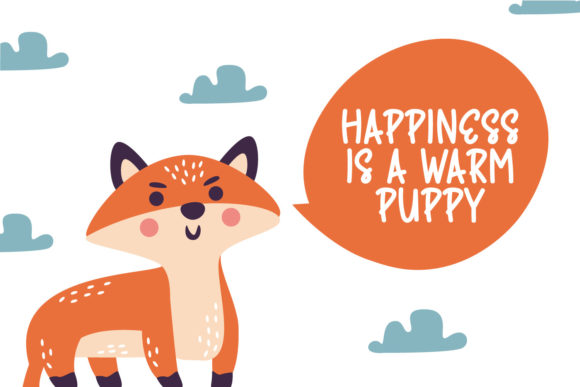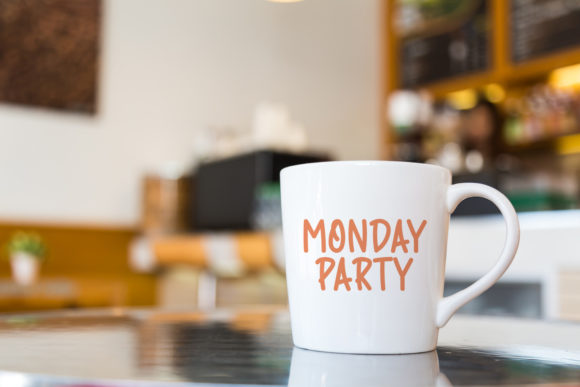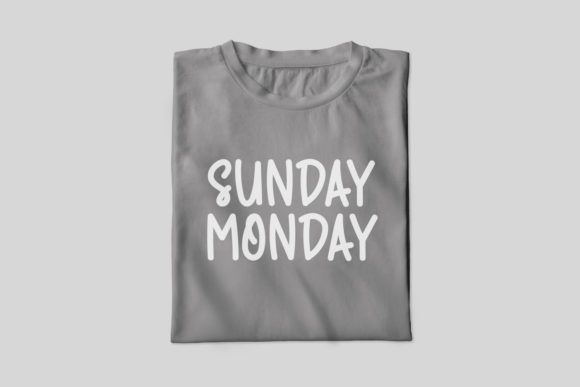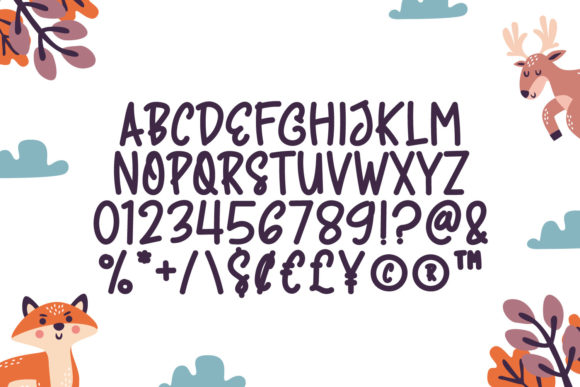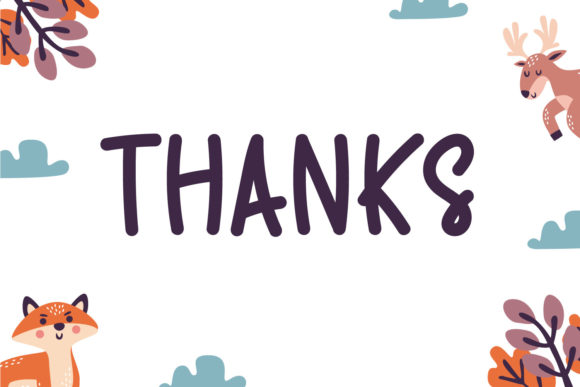
Introducing Comic Animal Font: The Ultimate Display Font for Your Creative Projects
Are you tired of using the same old fonts for your designs? Look no further! Comic Animal Font is here to revolutionize your creative projects with its cute, simple, and trendy display font. This versatile font is suitable for a wide variety of designs, making it the perfect addition to your font library.
What Makes Comic Animal Font So Special?
Comic Animal Font is a unique and charming display font that can add a touch of personality to any design. Its simplicity and cuteness make it perfect for designs that require a playful and fun approach. The font’s trendy style ensures that your designs will look modern and fresh, grabbing the attention of your audience.
Why Choose Comic Animal Font?
- Versatility: Comic Animal Font is suitable for a wide range of designs, from posters and flyers to social media graphics and branding materials.
- Ease of Use: The font is simple to use and can be easily integrated into your design projects.
- Cute and Playful: The font’s cute and playful style adds a touch of personality to your designs, making them more engaging and memorable.
- Trendy: The font’s trendy style ensures that your designs will look modern and fresh.
Comic Animal Font is a perfect fit for designers and crafters who are looking for a unique and versatile font to add to their collection. Whether you’re working on a personal project or a client’s design brief, this font is sure to impress. Its simplicity and cuteness make it easy to pair with other fonts, creating a beautiful and harmonious design.
Use Cases for Comic Animal Font
Comic Animal Font can be used in a variety of design projects, including:
- Posters and Flyers: Add a playful touch to your posters and flyers with Comic Animal Font.
- Social Media Graphics: Use the font to create engaging social media graphics that grab attention.
- Branding Materials: Add a personal touch to your branding materials, such as business cards and brochures.
- Crafting Projects: Use the font to add a cute and playful touch to your crafting projects, such as handmade cards and gift tags.
Tips for Using Comic Animal Font
Here are some tips for using Comic Animal Font effectively:
- Pair it with Other Fonts: Experiment with pairing Comic Animal Font with other fonts to create a unique and harmonious design.
- Use it for Headings: Use Comic Animal Font for headings and titles to add a playful touch to your design.
- Experiment with Colors: Experiment with different colors to find the perfect combination that matches your brand’s style.
Comic Animal Font is a versatile and charming display font that can add a touch of personality to any design. Its simplicity, cuteness, and trendy style make it perfect for a wide range of designs. Whether you’re a designer or crafter, Comic Animal Font is sure to become your go-to font for all your creative projects.